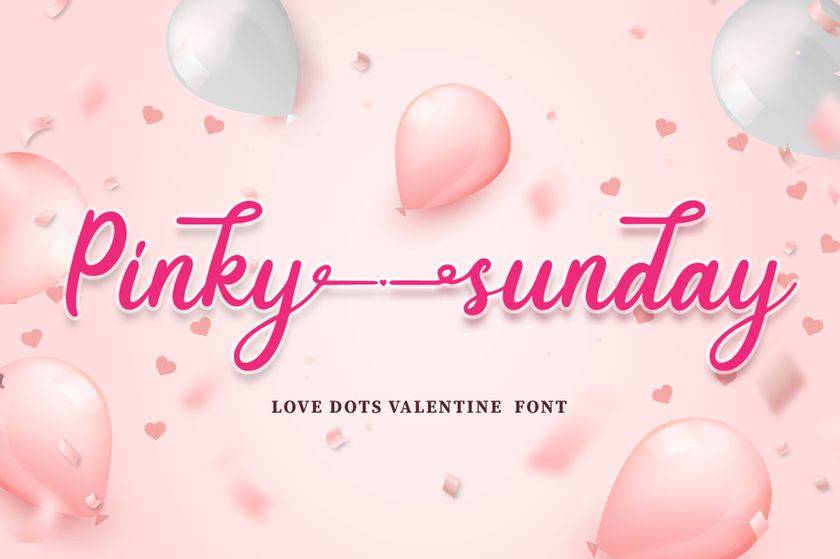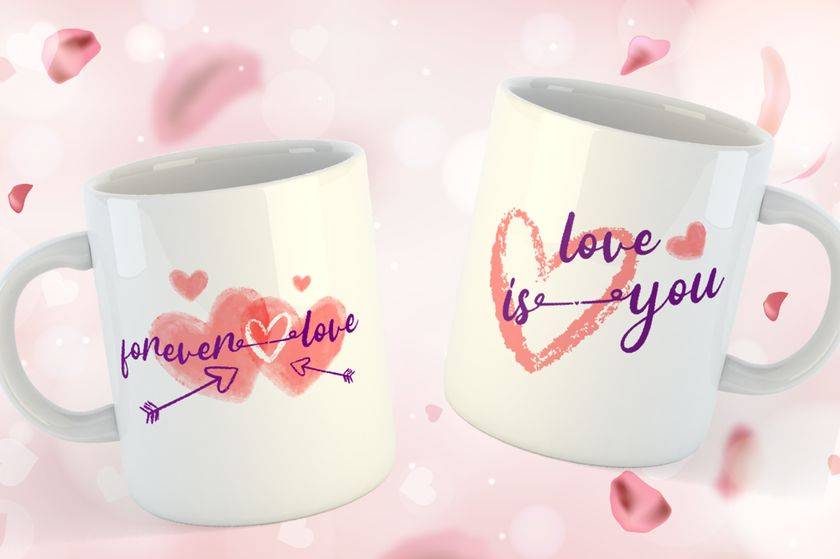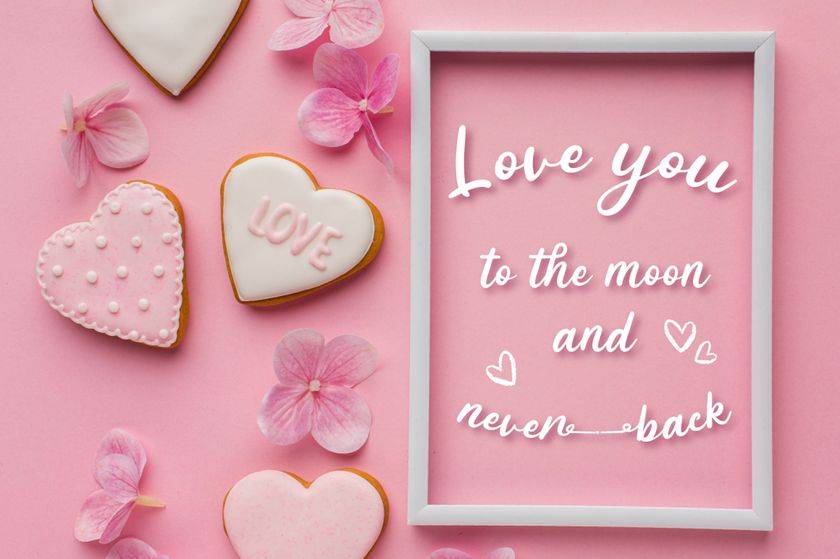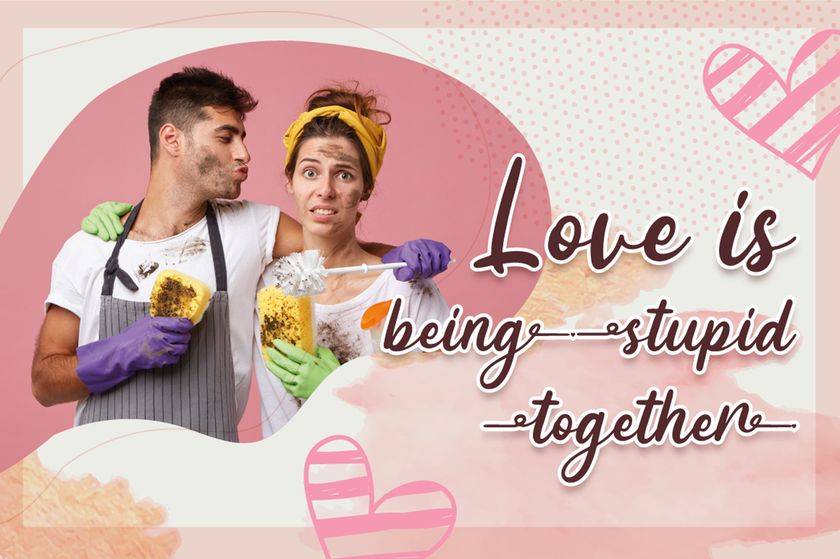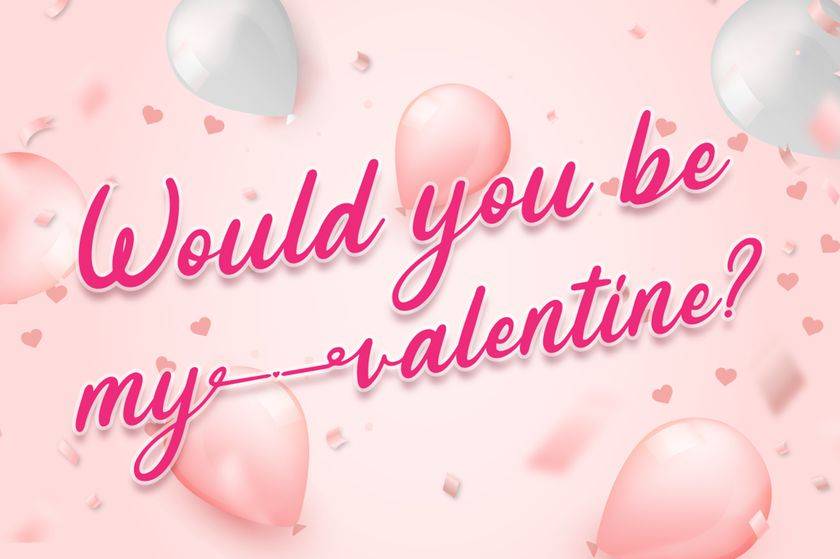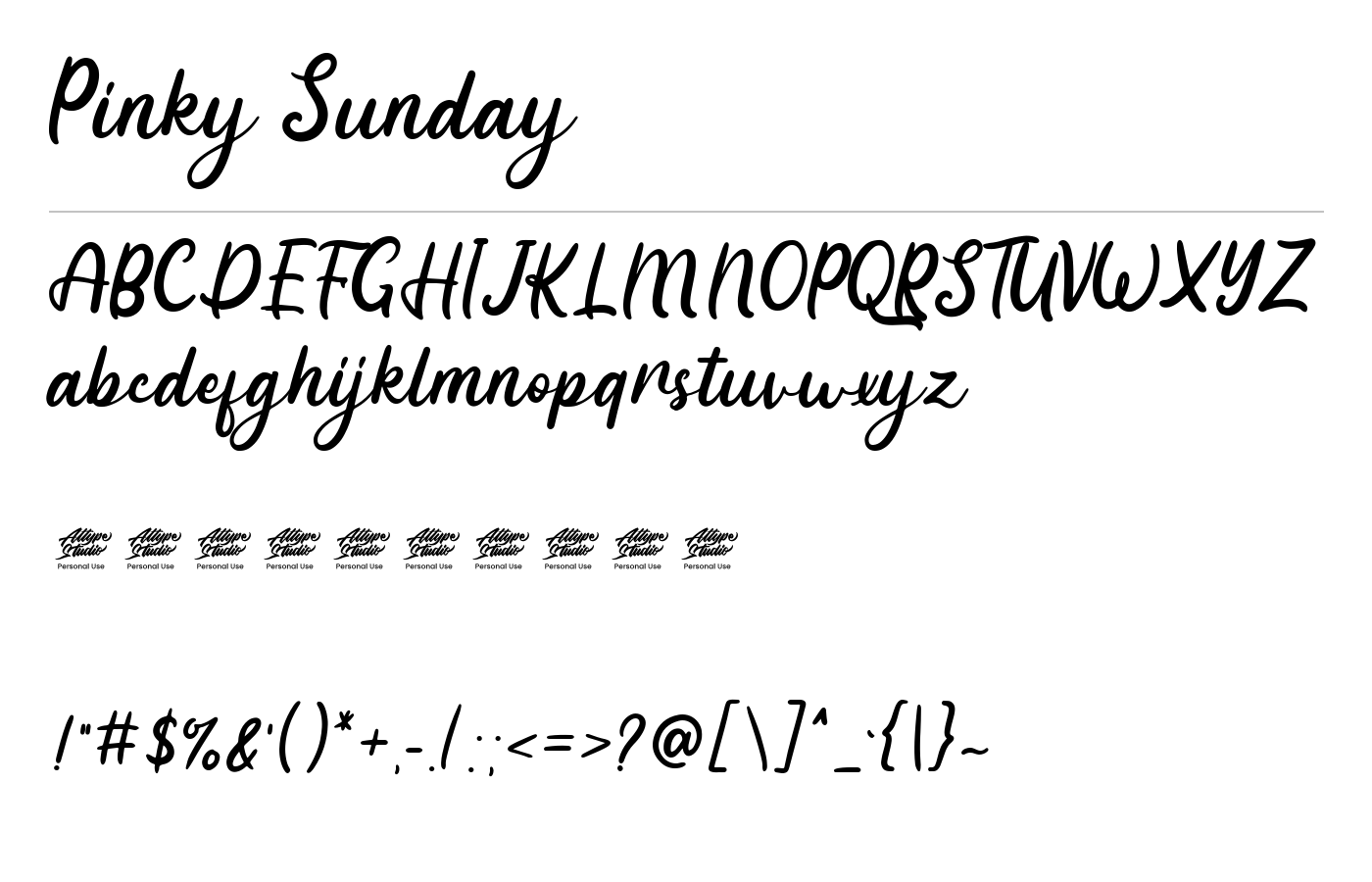
Pinky Sunday is a lively and elegant script font featuring smooth, flowing strokes and a casual, handwritten feel. Its moderate weight and generous x-height make it highly readable while retaining a playful, charming personality perfect for creative branding, invitations, and lifestyle projects. This font works well in headlines and logos where a friendly yet sophisticated touch is desired.
Pinky Sunday Font
About Pinky Sunday Font